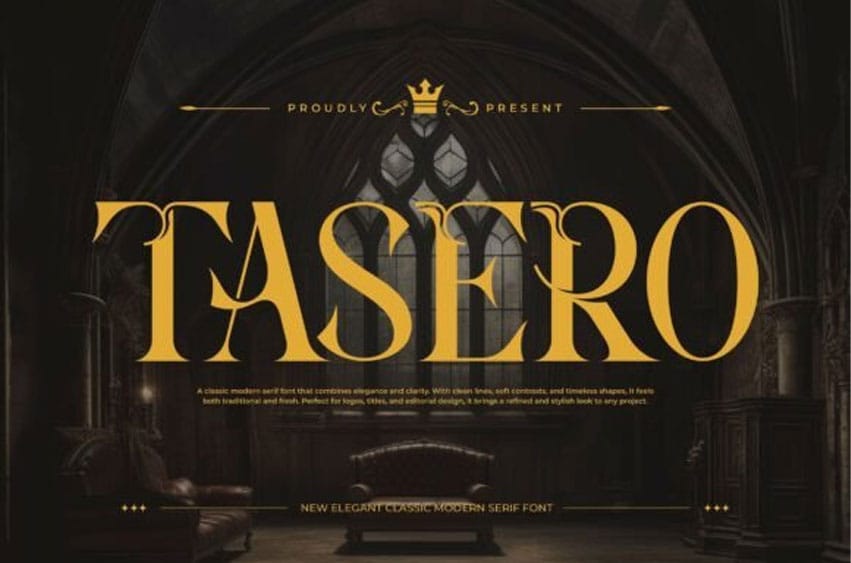
Tasero Font is a bold and elegant serif font that captures both tradition and modernity. With its sharp serifs, strong contrast, and ornamental details, Tasero radiates authority and sophistication.
Ideal for logos, headlines, book covers, posters, and editorial layouts, it delivers a timeless yet fashionable appeal. Whether for luxury branding or creative projects, Tasero ensures your text makes a powerful impression.